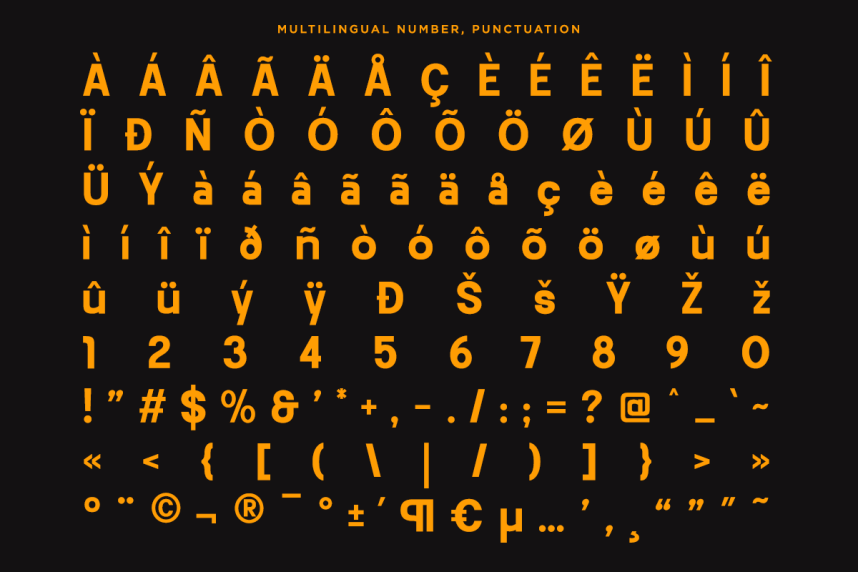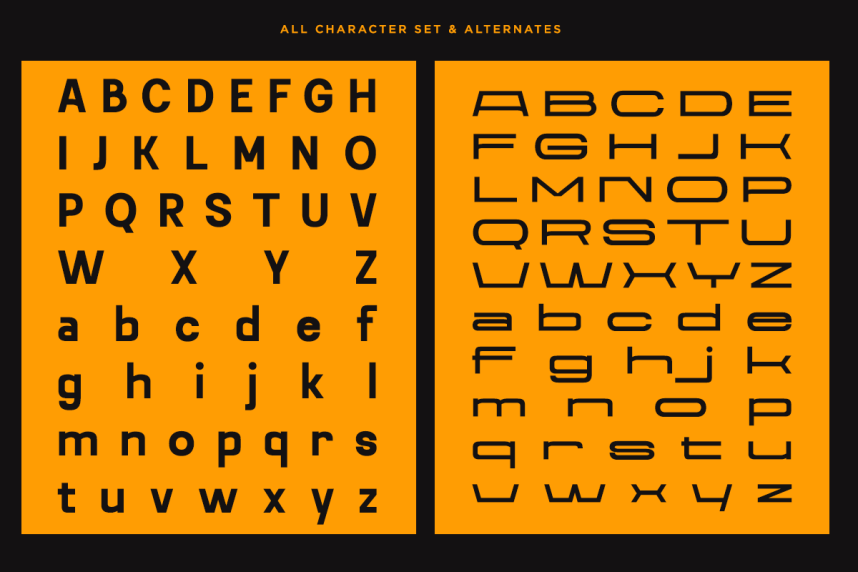
Nexover Font is a futuristic and elegant sans-serif typeface designed for modern visual identity. Its balanced proportions and smooth edges give every word a refined sense of confidence. The design feels powerful yet minimal.
Each letter is shaped with attention to precision and clarity. The font’s flow makes it suitable for clean branding, digital products, and tech-driven visuals. It communicates innovation through simplicity.
Nexover Font looks great in titles, banners, and UI layouts. It performs well in both display and paragraph text, maintaining perfect legibility on every screen. Designers love how flexible it feels.
This font combines professional energy with creative appeal, making it a popular choice for startups and modern agencies. It captures progress and intelligence at first glance.
Nexover Font Family
The sleek geometry of Nexover ensures consistency across all characters. It stands out especially well in futuristic themes, software interfaces, and branding campaigns.
This typeface turns ordinary text into a symbol of technology and vision. It is the perfect mix of modern engineering and artistic refinement that inspires confidence and creativity.